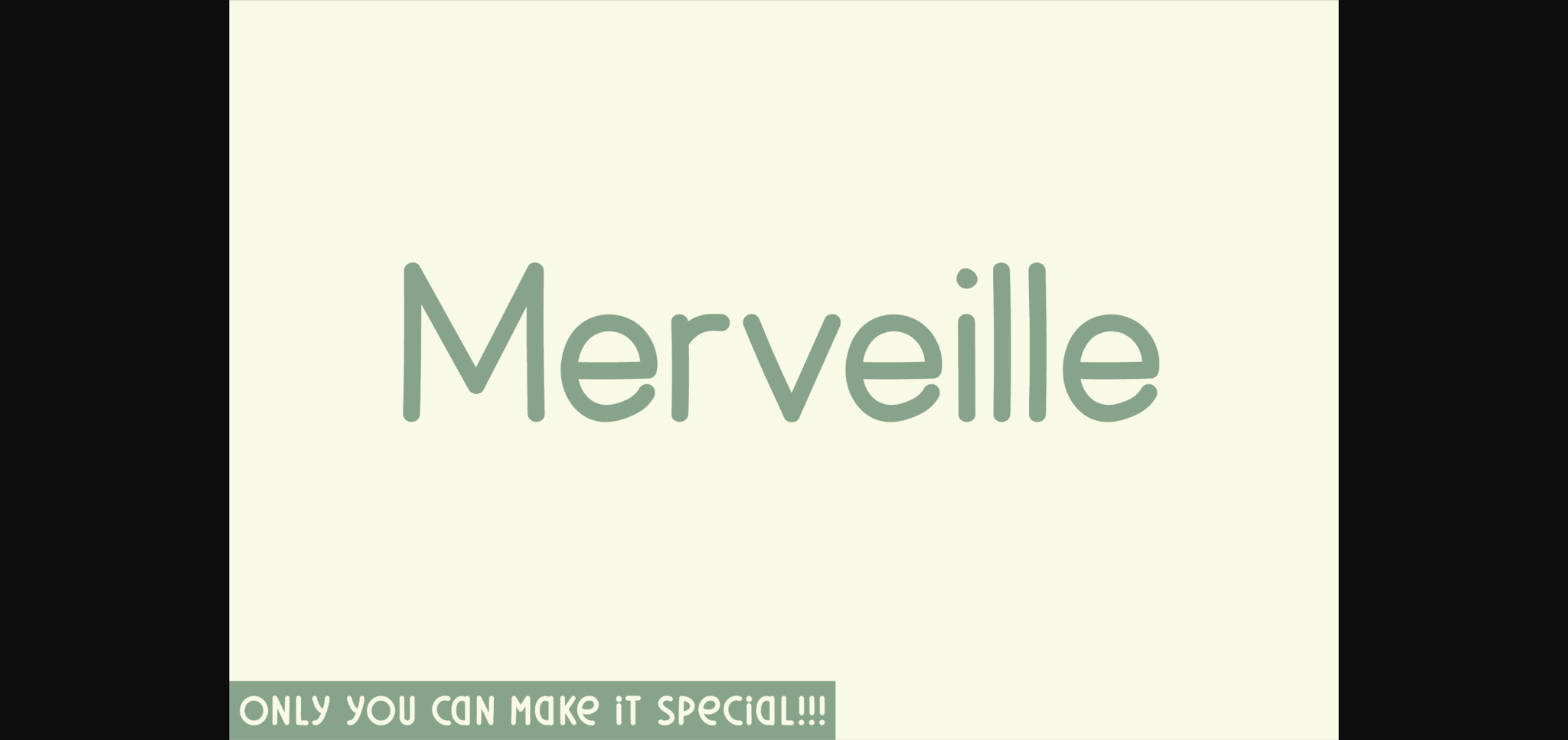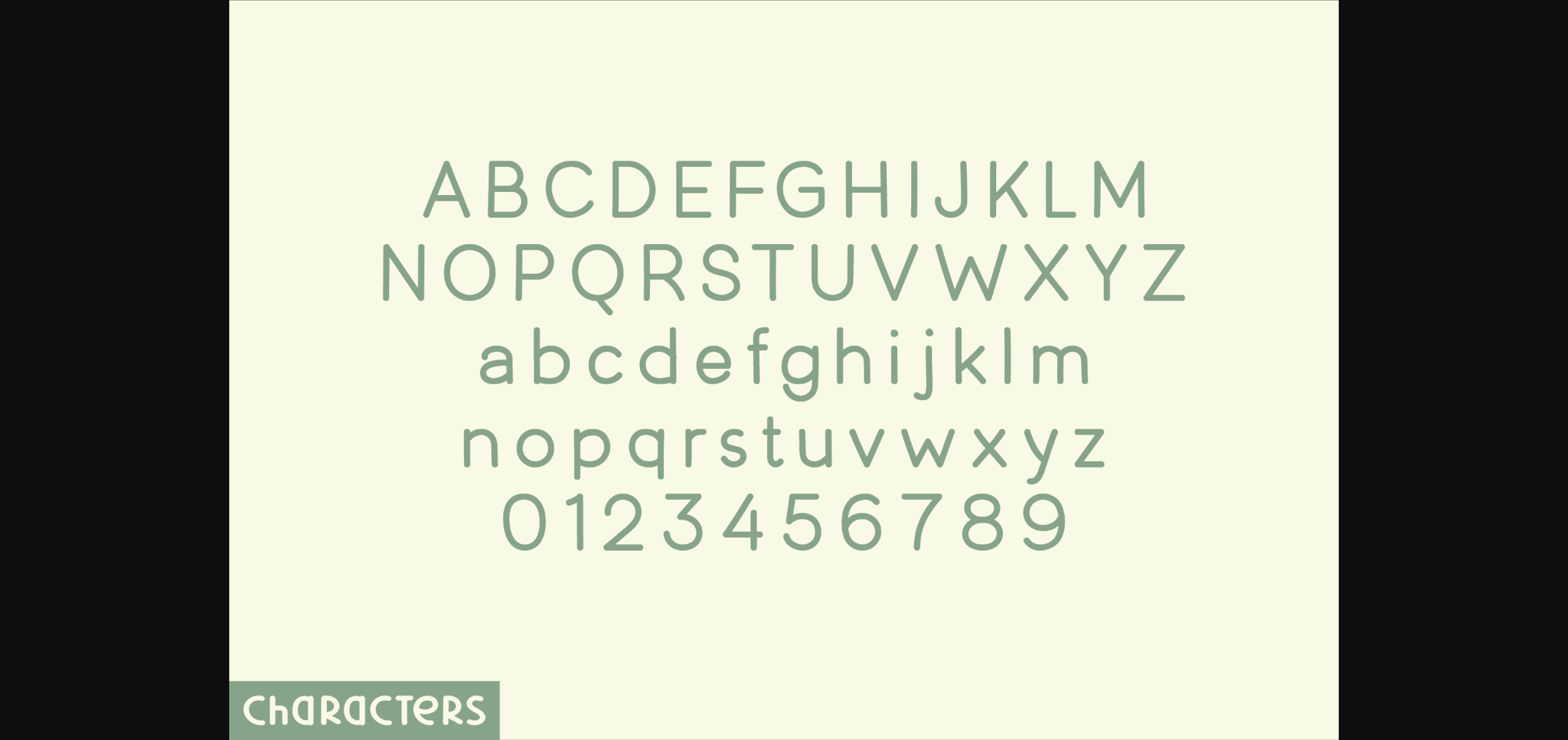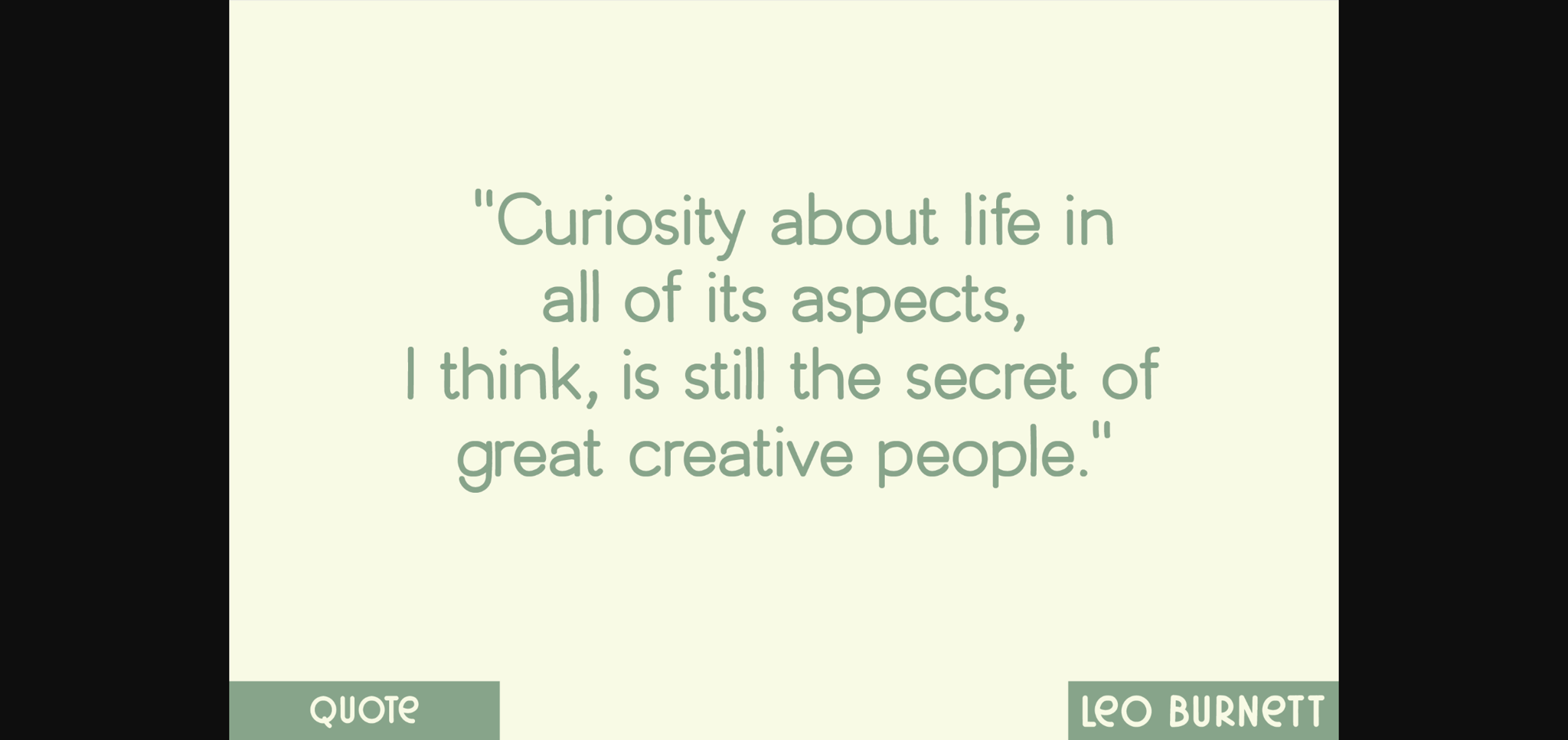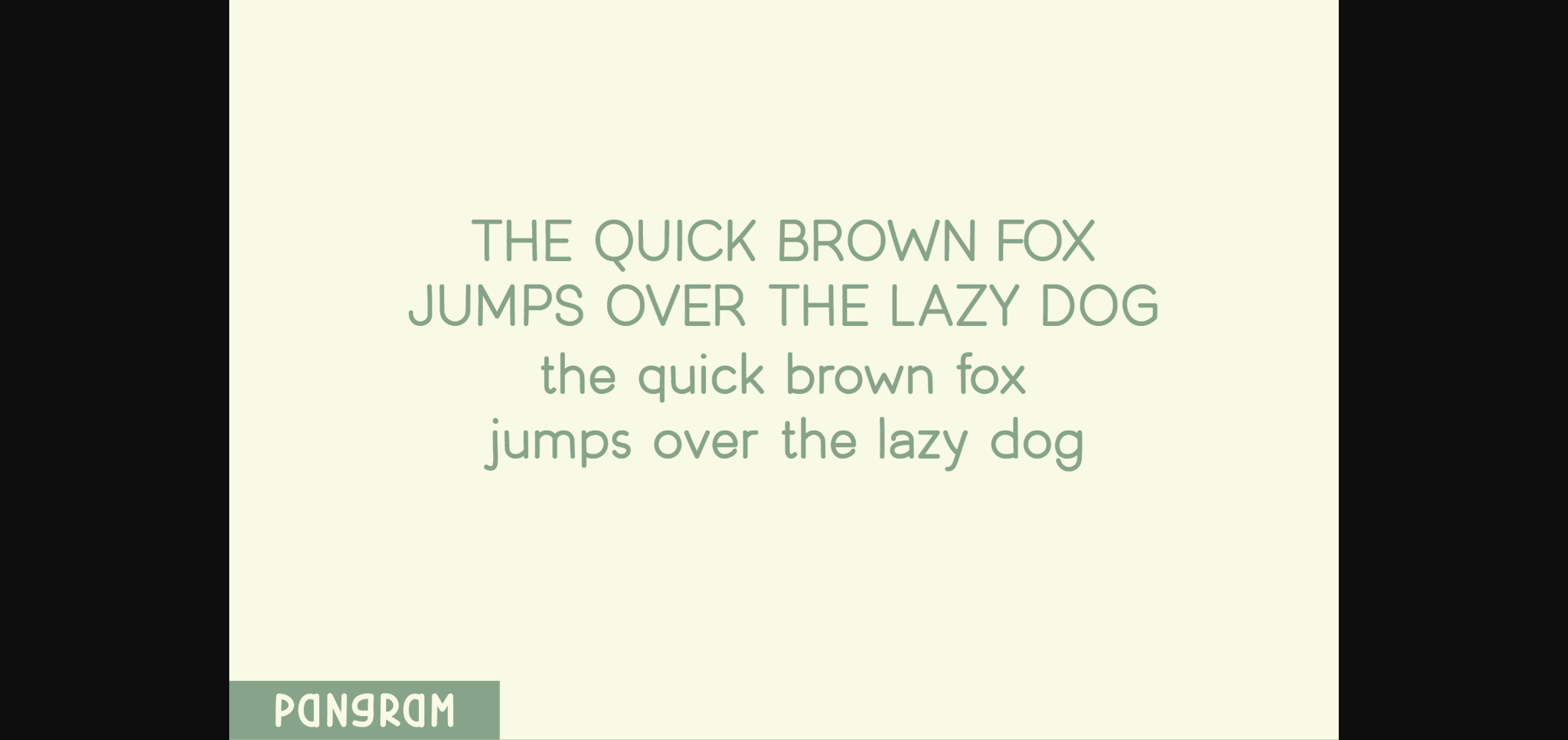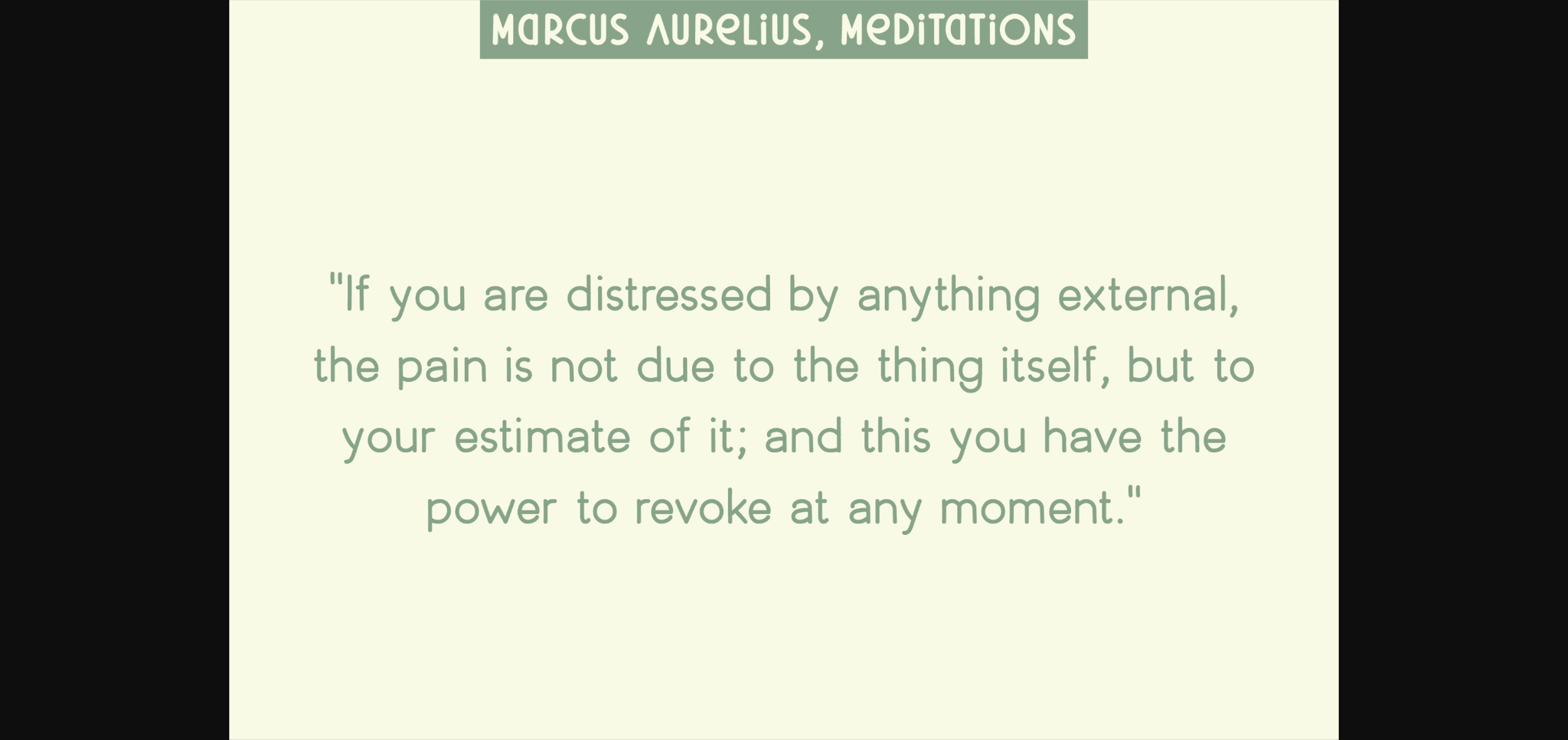
Merveille Font
About Merveille Font
Introducing Merveille, a distinctive handwritten sans serif font loaded with character. It comes complete with an array of uppercase and lowercase letters, numbers, and functional characters. The amiable consistency in the formation of each letter-end exudes an inviting yet assertive feel. Merveille is an unparalleled choice for designs demanding a unique and striking flair. Its compelling individuality makes it a must-have in any designer’s repertoire.